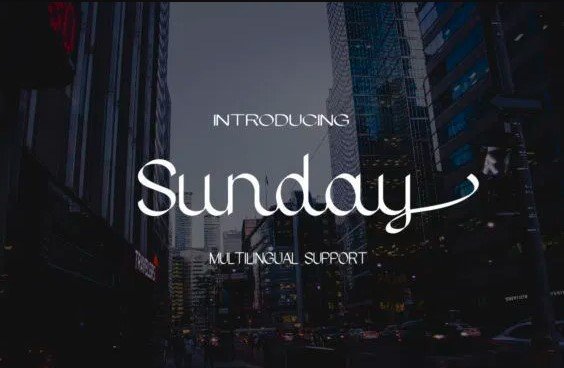
Today, we’re excited to share with you the exquisite and versatile Sunday Script Font. This typeface boasts an array of impressive features, including numerous alternates, glyphs, and styles, all of which will enhance your designs, making them even more remarkable and distinct.
This is one of the finest typefaces that are mostly designers used in their regular projects. Because of its extraneous beauty, you will make any complex designs within a few minutes.
Sunday Script Font puts more attractivity, beauty, and mind-blowing texture into your designs. We delivered this font in TrueType format that can be runnable in all computer systems you have.
View Of Sunday Script Font
Now, the time comes to view the sample the of great typeface that you will be making projects with conthrax font. Below, we shared an image that contains the glyphs and characters of this amazing font which creates the best designs in Adobe Photoshop and Adobe Illustrator.
This font contains high-quality legible characters which are perfect and ideal for logo designing, banners, brochures, t-shirt designs, and visiting cards.
Also, this is great for titling, and pairing purposes as well. Anyone can use it for pairing purposes, we recommend you to use it with the combination of sitka brush font for more awesome features, styles, and ligatures.